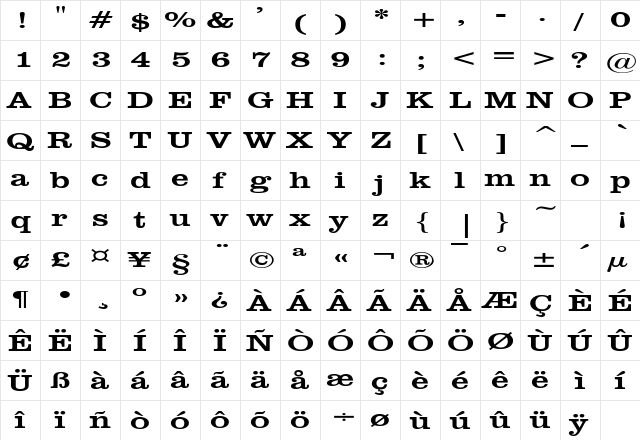
GettysburgExtended Regular
Design Context for GettysburgExtended Typeface
GettysburgExtended offers clean, dependable letterforms without strong stylistic allegiance, making it a practical choice for designers who need flexibility.